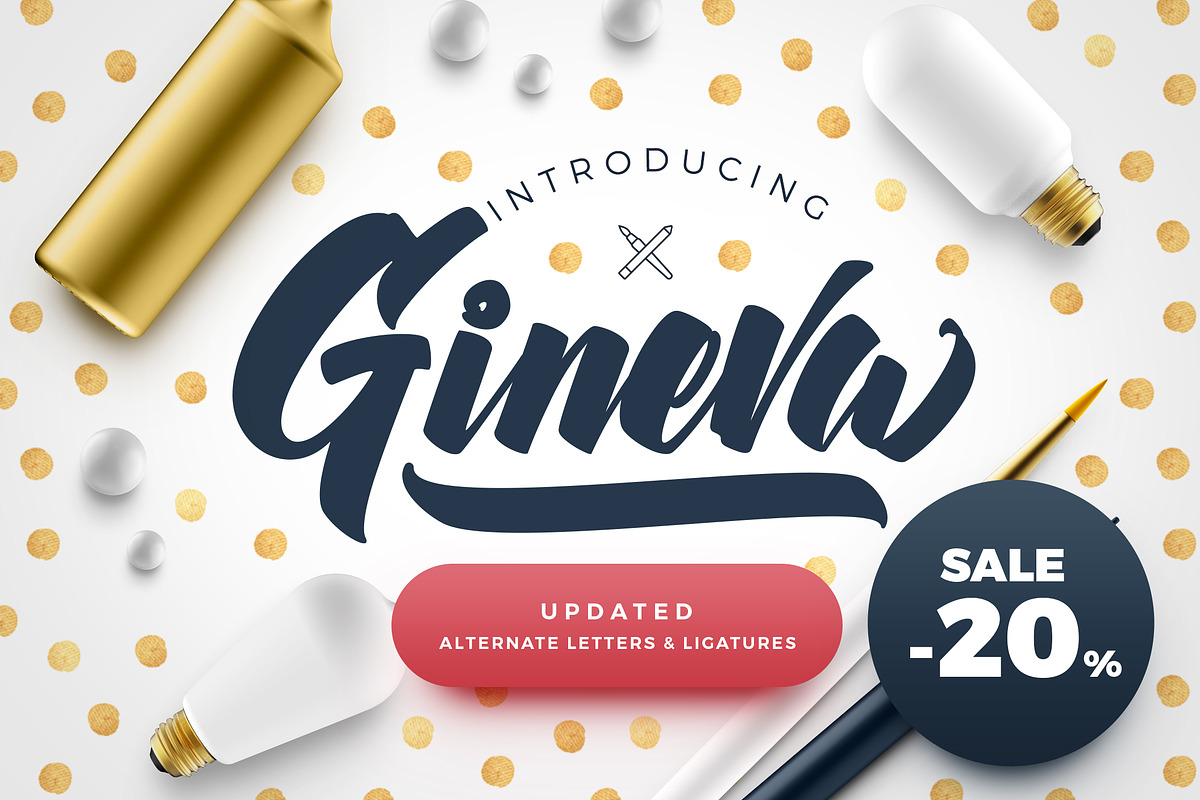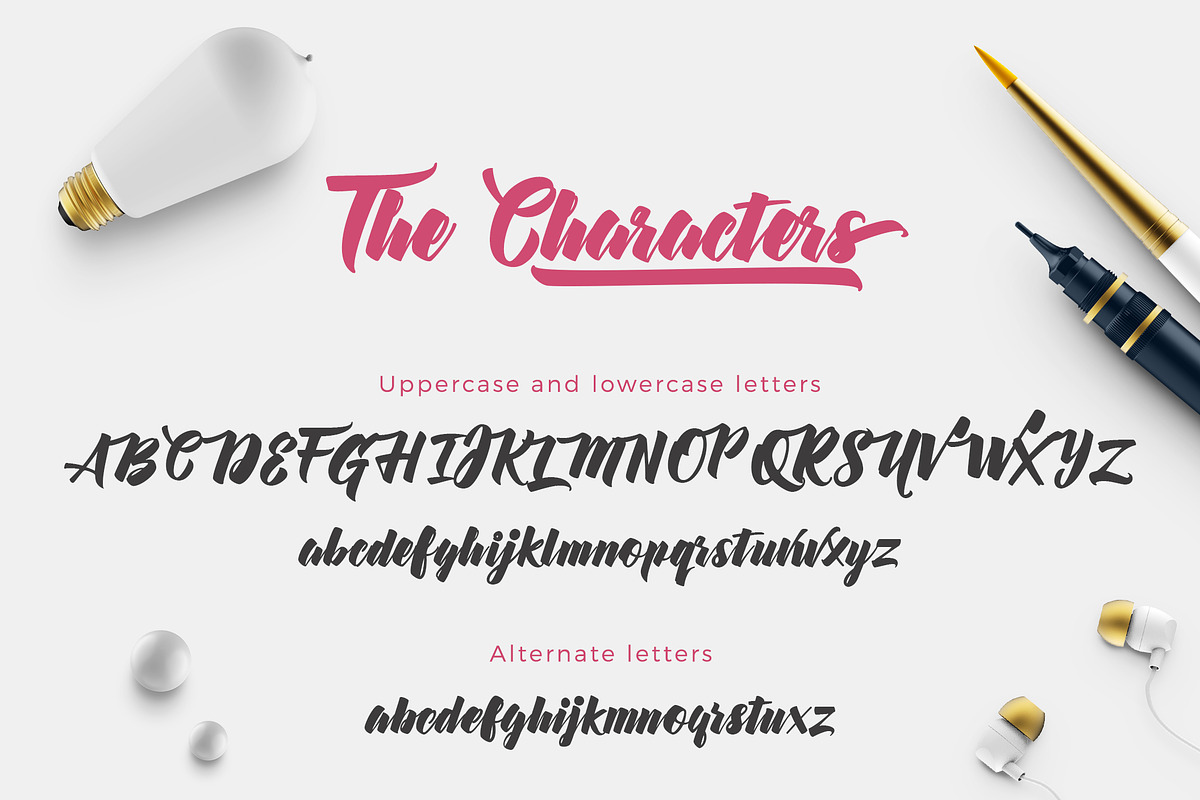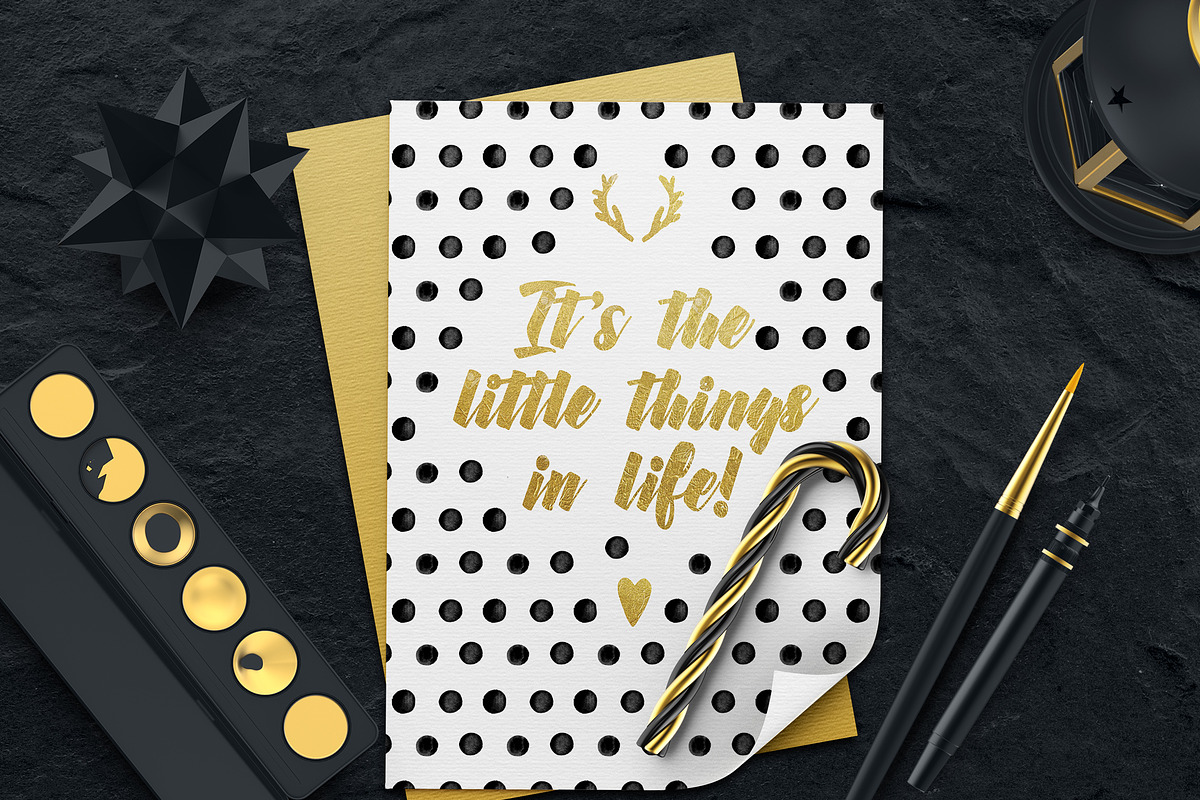
Gineva Script Font
Gineva Script Font by kavoon is a font selected for branding, posters, packaging, typography.
Why Gineva Script Font is worth a look
Gineva Script Font by kavoon fits naturally into Branding, posters, packaging, typography.